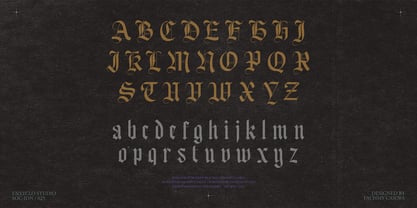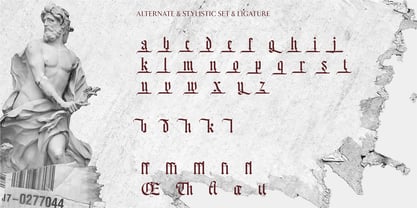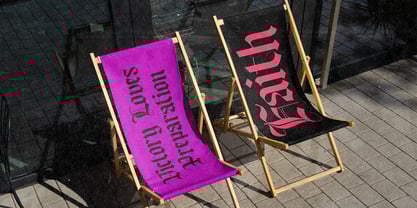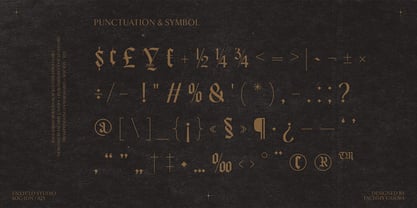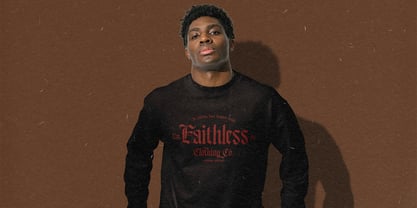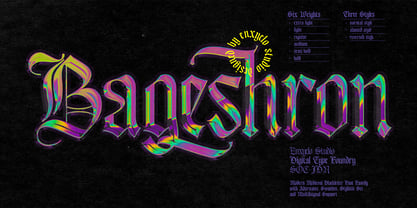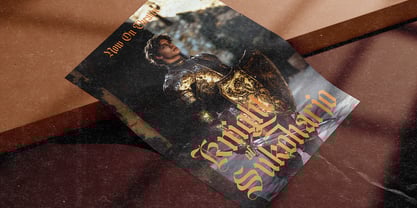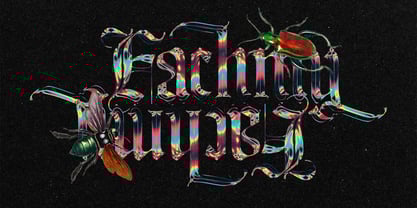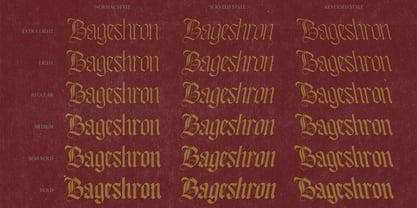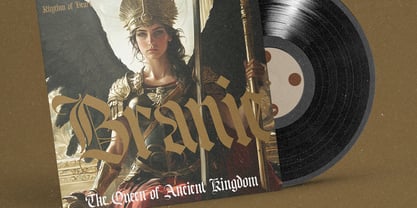
Bageshron
The Bageshron Font Family was designed by Fahmi Mubarok and published by Enxyclo Studio. Bageshron contains 18 styles.
Bageshron is a modern medieval blackletter font family. The letters are inspired from the middle ages with a blackletter style but have modern touch. Very suitable for creative projects that have a medieval theme or contemporary designs but have a modern-classic touch. Its modern aesthetics bring a whole new dimension to your designs, making them stand out. Whether you’re working on a website, poster, logo, or any other project, this font adds that extra touch of innovation and sophistication.
• 269 Glyphs for Each Weight and Style
• Six Weights: Extra Light, Light, Regular, Medium, Semi Bold, Bold
• Three Styles: Normal, Slanted, Reversed
• Uppercase & Lowercase
• Numeral, Punctuation & Symbols
• Alternates, Swash, Ligature and Stylistic Set
• Multilingual Support